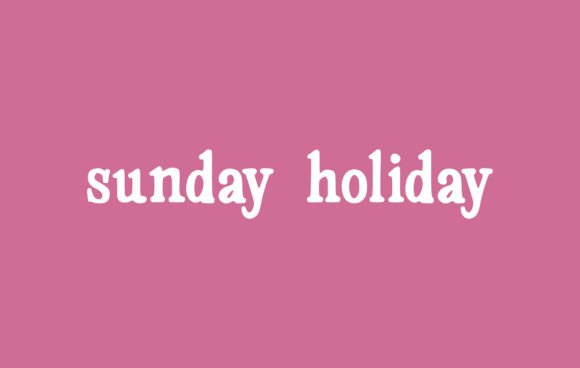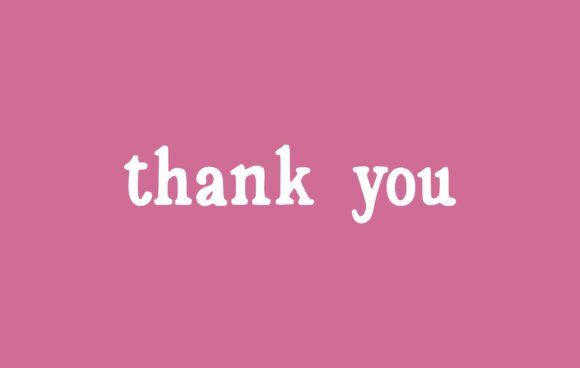
Echodash Font: Elevate Your Designs with a Bold Serif Twist
In the realm of typography, fonts play a pivotal role in conveying messages, evoking emotions, and defining the aesthetic appeal of any design project. For designers and crafters seeking a typeface that blends vintage charm with modern boldness, the Echodash Font emerges as an exceptional choice. Inspired by the nostalgic feel of classic serif fonts, Echodash introduces a fresh, modern spin, making it perfect for logos, headlines, and various design projects that demand a bit of bold personality.
The Essence of Echodash Font
Echodash is not just another serif font; it’s a bold statement in the world of typography. Its design is rooted in the principles of vintage aesthetics, yet it carries a contemporary edge that sets it apart from traditional typefaces. This unique blend makes Echodash versatile and suitable for a wide array of applications, from branding and advertising to packaging and digital content creation.
Key Features of Echodash Font
- Bold and Assertive: Echodash lives up to its name by offering a bold and assertive presence in any design. Its serifs are carefully crafted to make a statement without overpowering the content.
- Vintage yet Modern: The font strikes a perfect balance between vintage charm and modern simplicity. This duality allows it to fit seamlessly into both retro-themed projects and modern designs.
- High Versatility: Whether it’s for a logo, a headline, or body text, Echodash adapts with ease. Its versatility is one of its strongest selling points, making it a go-to font for designers.
- Excellent Legibility: Despite its bold nature, Echodash maintains excellent legibility, ensuring that messages are conveyed clearly and effectively across various mediums.
Applications of Echodash Font
The applications of Echodash are vast and varied. Here are some of the most notable uses:
- Logo Design: Echodash’s unique blend of vintage and modern elements makes it an excellent choice for logos that need to stand out.
- Headlines and Titles: Its bold nature makes it perfect for headlines and titles that require a strong visual impact.
- Nostalgic Projects: For designs that aim to evoke a sense of nostalgia, Echodash provides the perfect blend of old and new.
- Branding and Advertising: Echodash can help brands establish a strong and memorable visual identity.
Why Choose Echodash Font?
In a sea of typefaces, Echodash stands out for several reasons:
- Unique Aesthetic: It offers a unique aesthetic that is hard to find in other fonts.
- Quality and Craftsmanship: Echodash is crafted with attention to detail, ensuring high quality in every aspect.
- Support for Various Projects: Whether you’re working on a digital project or a print design, Echodash adapts with ease.
Echodash Font is more than just a typeface; it’s a design statement. Its bold serifs, vintage inspiration, and modern twist make it a valuable asset for designers and crafters looking to elevate their projects. With its versatility, legibility, and unique aesthetic, Echodash is poised to become a favorite among professionals and hobbyists alike. Whether you’re aiming to create a memorable logo, an impactful headline, or a nostalgic design, Echodash is the perfect companion for your creative journey.
Echodash Font is not just a typeface; it’s a gateway to creating visually stunning and effective designs. With its unique blend of vintage charm and modern boldness, it’s set to become an indispensable part of your design toolkit.